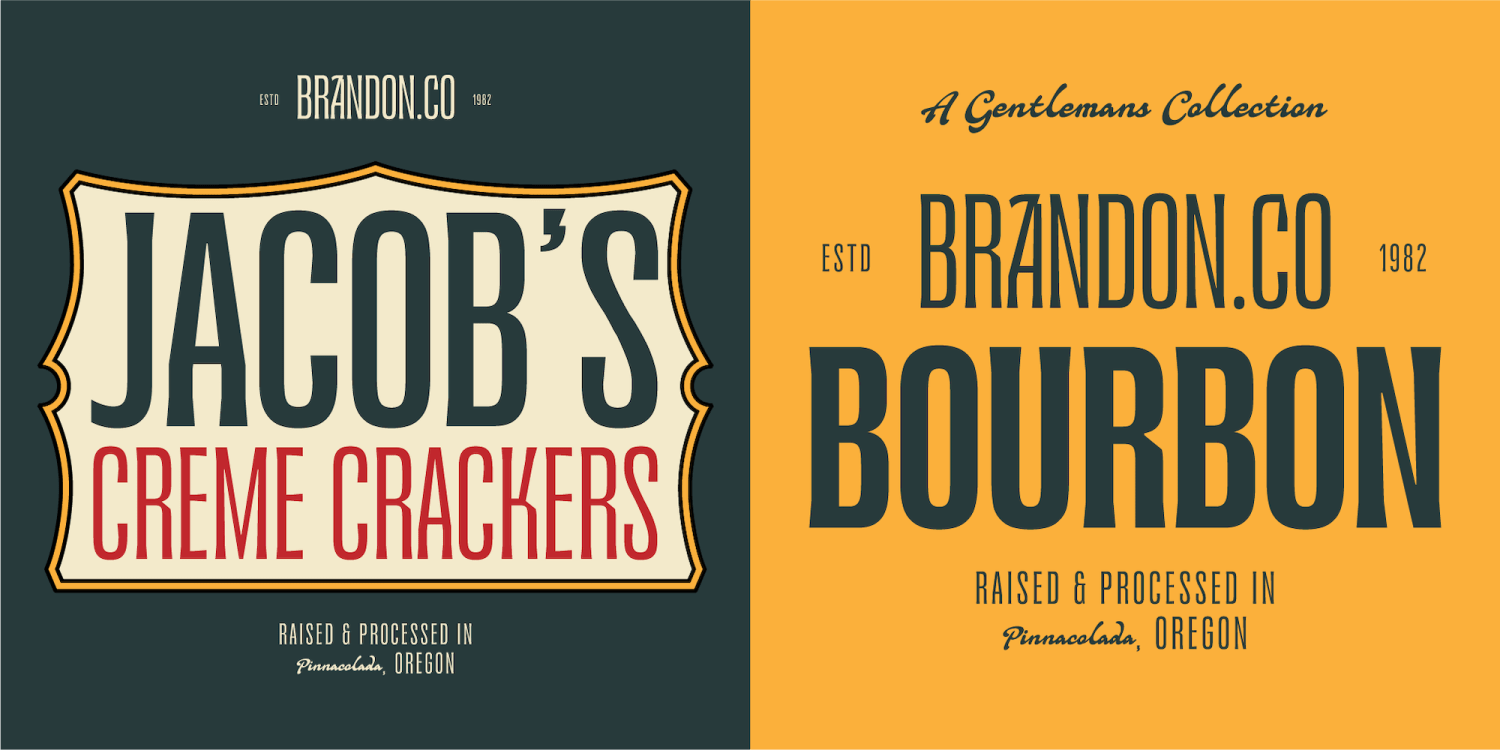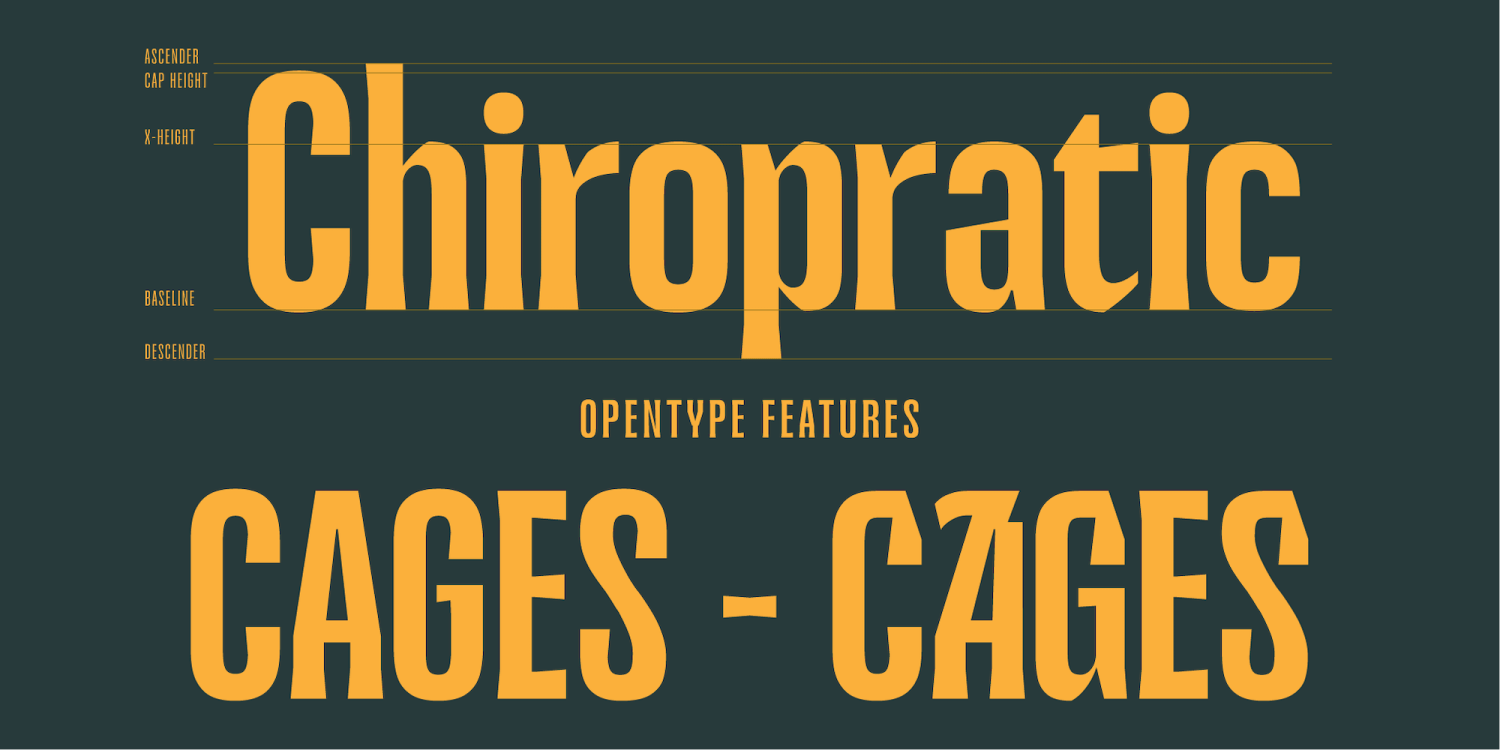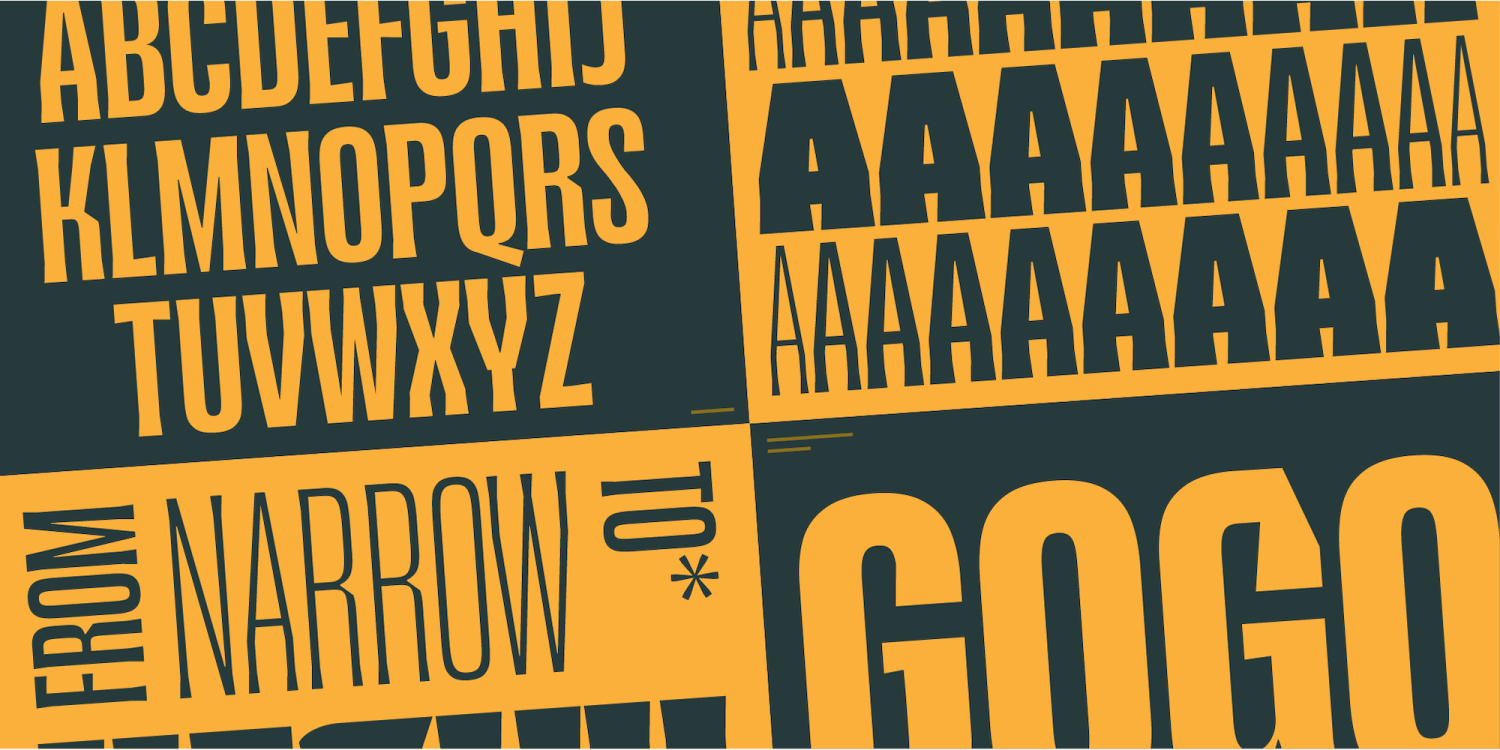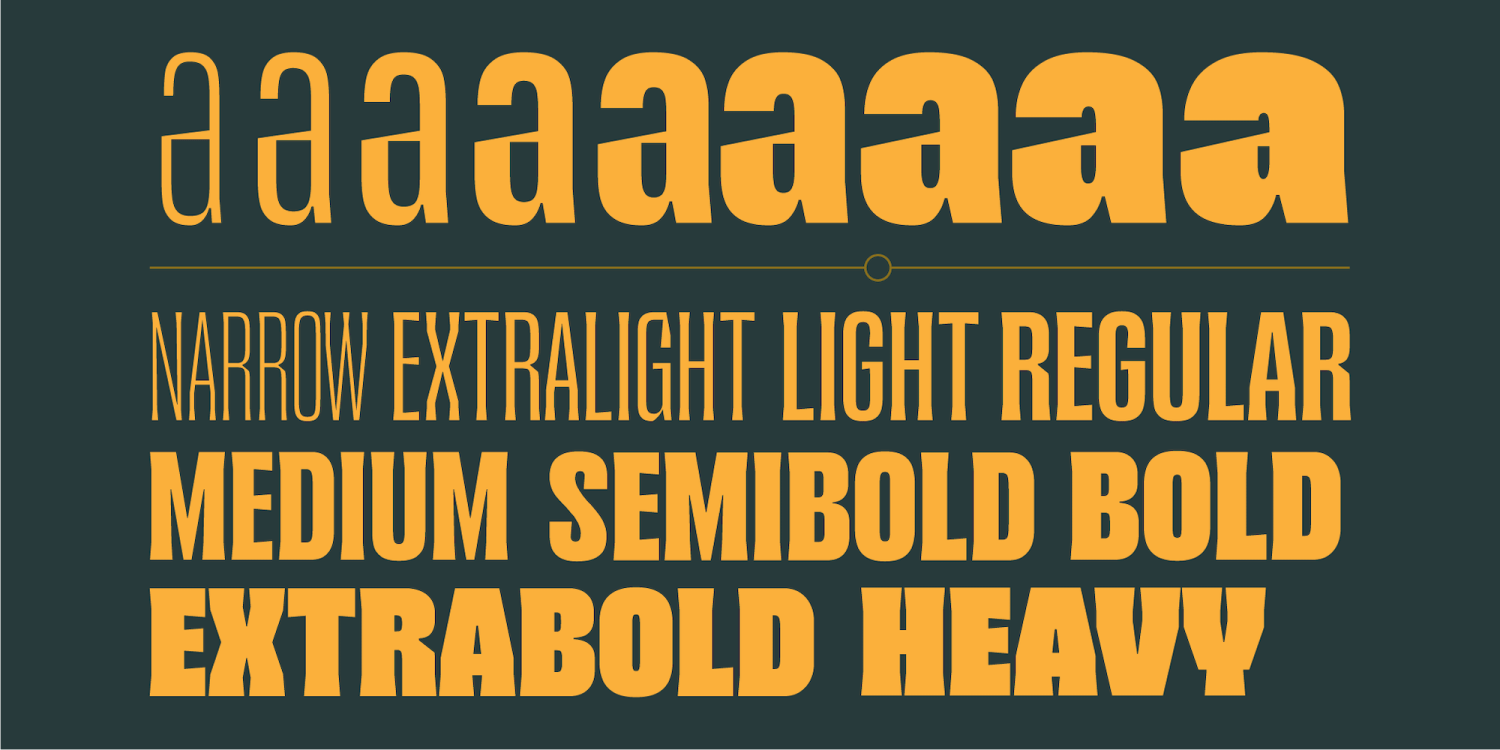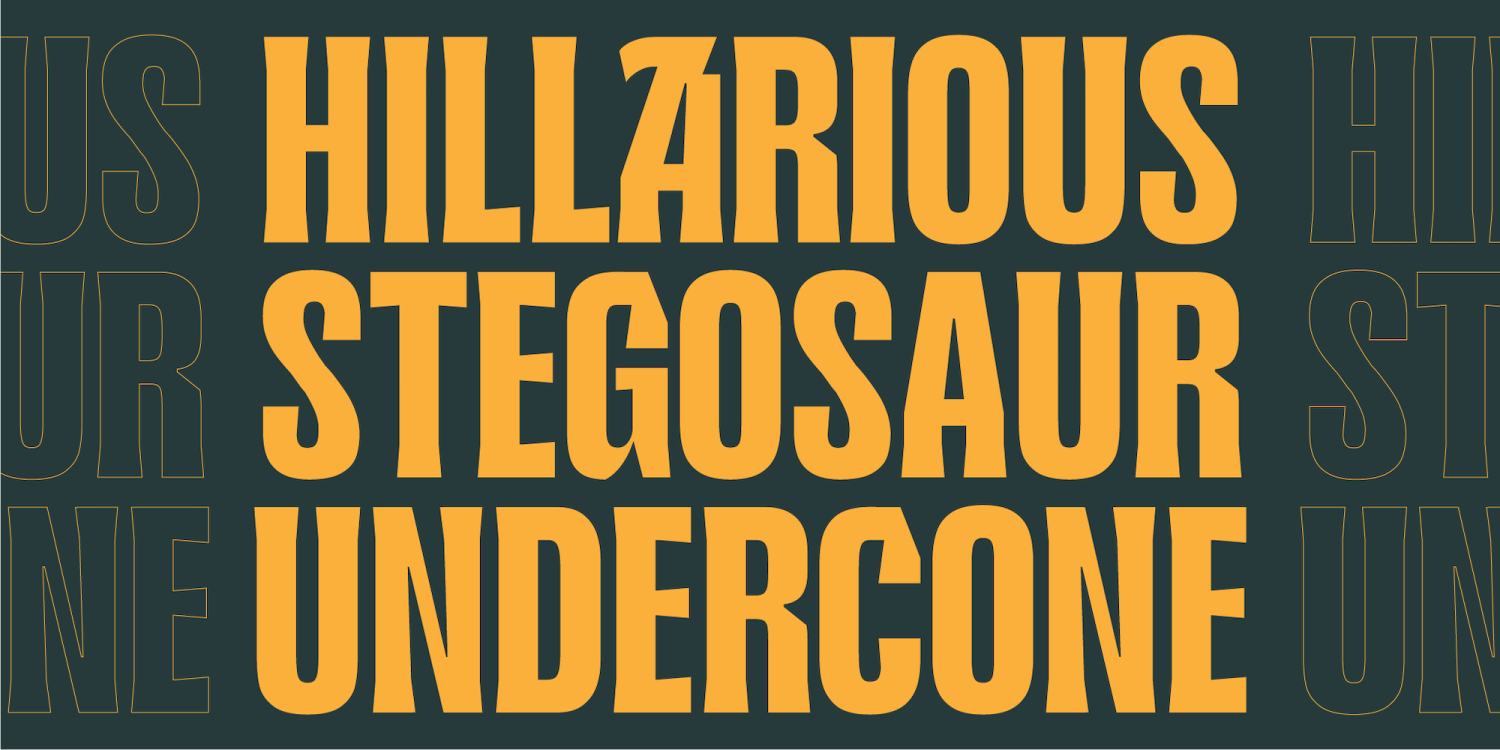
Jacoma is a minimalistic wedge serif font designed with modern aesthetics and versatility in mind. Characterized by its tall, strong, and masculine form, Jacoma offers a sharp and elegant look that commands attention without being overly decorative. This…